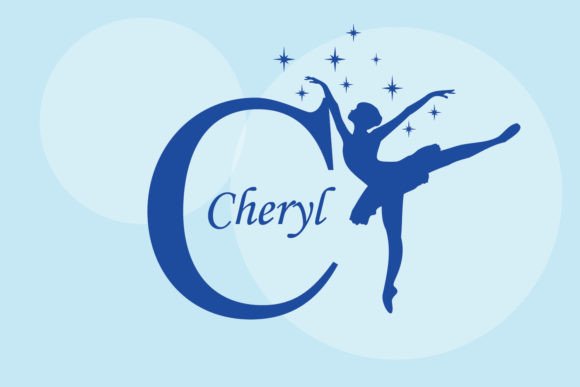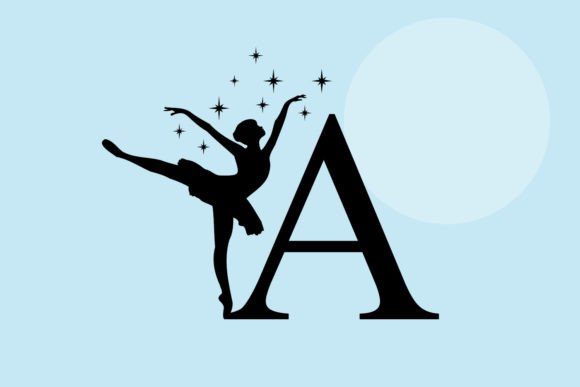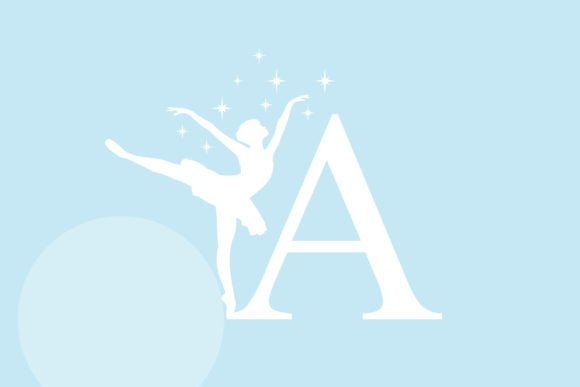
Introduction to Bellerina Monogram Font
Bellerina Monogram is an elegant decorative font, featuring lovely ornaments.
Fall in love with its authentic feel and use it to create gorgeous stationary art, eye-catching social media posts, and cute greeting cards .
Key Features of Bellerina Monogram Font